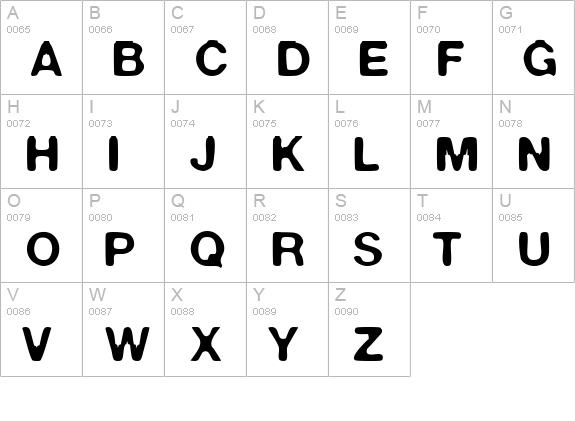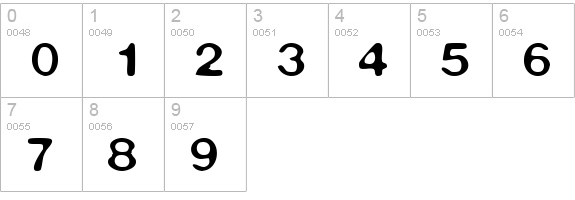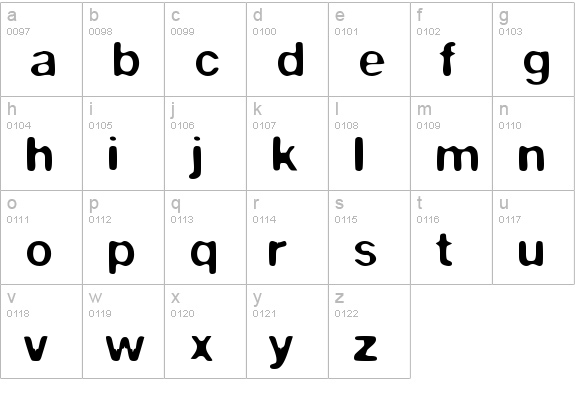
Warp 1 Font Details
Introducing Warp 1, a captivating font that seamlessly combines modernity with a touch of elegance. With its sleek and futuristic design, Warp 1 is perfect for adding a contemporary twist to any project. This versatile font is bound to make a lasting impression, whether used for headlines, logos, or even body text. Warp 1 boasts an extensive character set, including uppercase and lowercase letters, numerals, punctuation marks, and special symbols. Each glyph is meticulously crafted to ensure optimal legibility and visual appeal, making it a must-have for designers seeking a font that effortlessly stands out. But what truly sets Warp 1 apart is its availability as a free download on FontsMarket.com. That's right – this incredible font can be yours at absolutely no cost. Free from any licensing restrictions, you can use Warp 1 in both personal and commercial projects without worrying about breaking any rules. FontsMarket.com is proud to offer this extraordinary font to the design community, providing an opportunity for creatives of all backgrounds to elevate their work without breaking the bank. So why wait? Head over to FontsMarket.com today and immerse yourself in the world of Warp 1. Download it for free and let your creativity soar to new heights.